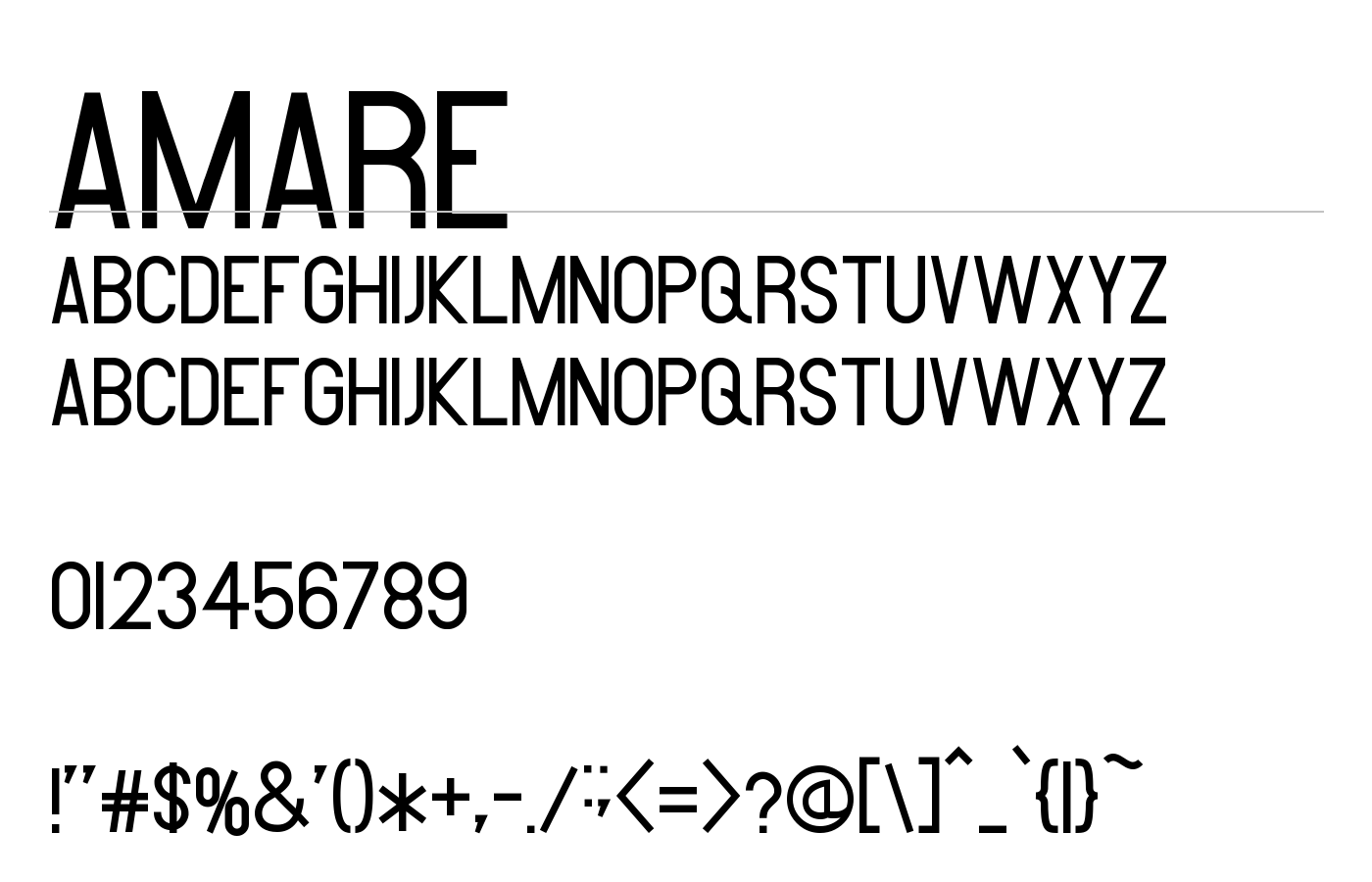
Amare is a tall, narrow sans serif font with a clean and modern look, featuring consistent stroke weights and a slightly condensed width. Its distinctive geometric shapes and uniform letterforms give it a sleek, contemporary feel, making it ideal for headlines, logos, and branding projects that want to convey professionalism and sophistication. The font’s clarity and stylish simplicity work well in digital and print contexts where space is limited but impact is key.
Amare Font
About Amare Font
| Font family | Amare Font |
| Designer | steve art |